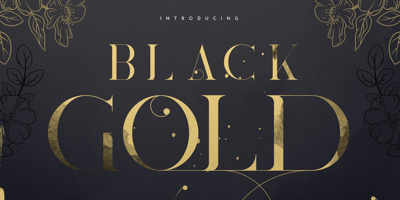
Black Gold VP Font Family was designed by Vladimir Fedotov, Plamen Petrov and published by VP Creative Shop. Black Gold VP contains 5 styles and family package options. Black Gold is sophisticated typeface with tons of alternate glyphs, ornaments and multilingual support. It’s a very versatile font that works great in large and small sizes.Black Gold is perfect for branding projects, home-ware designs, product packaging, magazine headers – or simply as a stylish text overlay to any background image.Feel free to contact me if you have any questions!